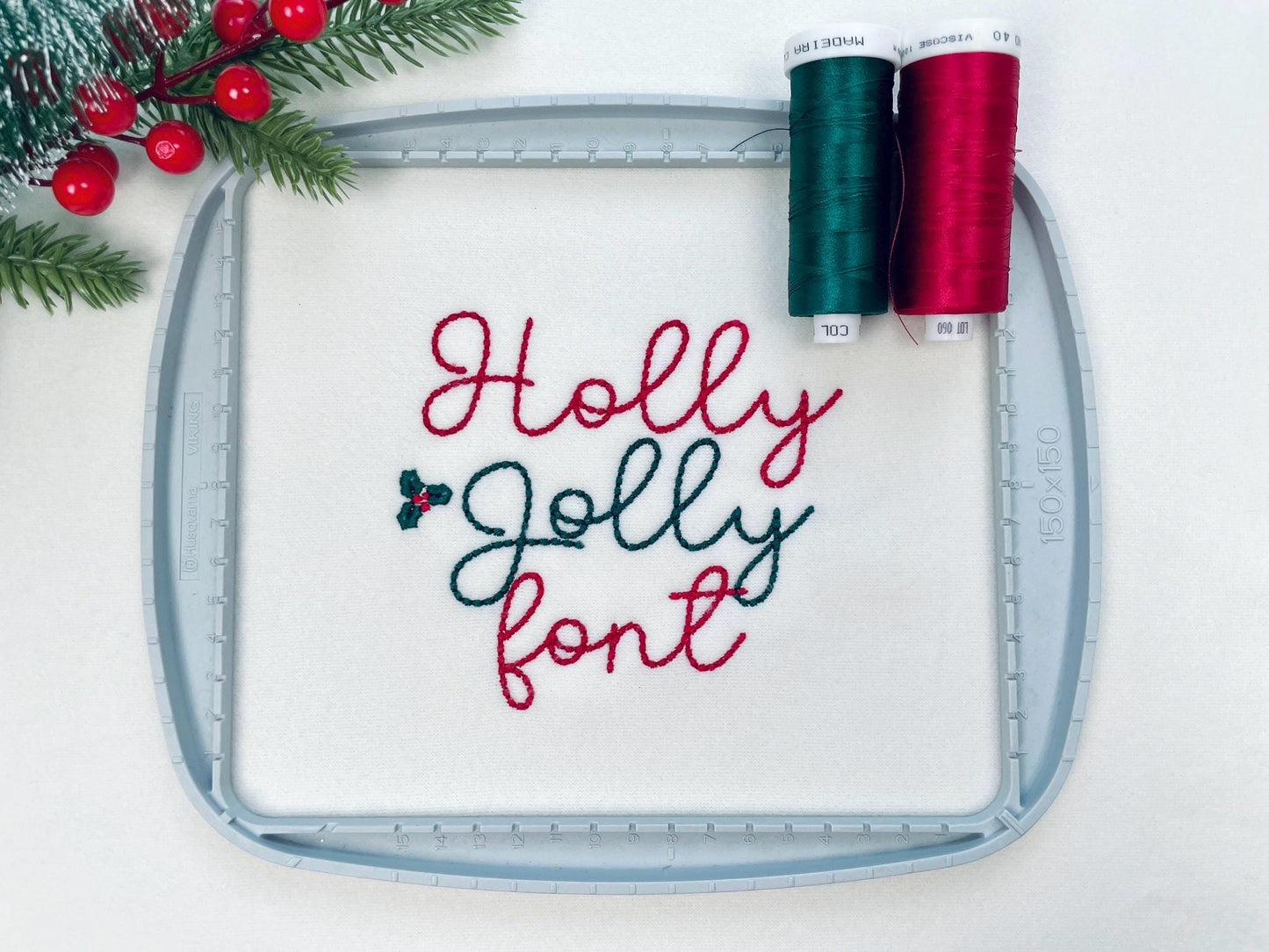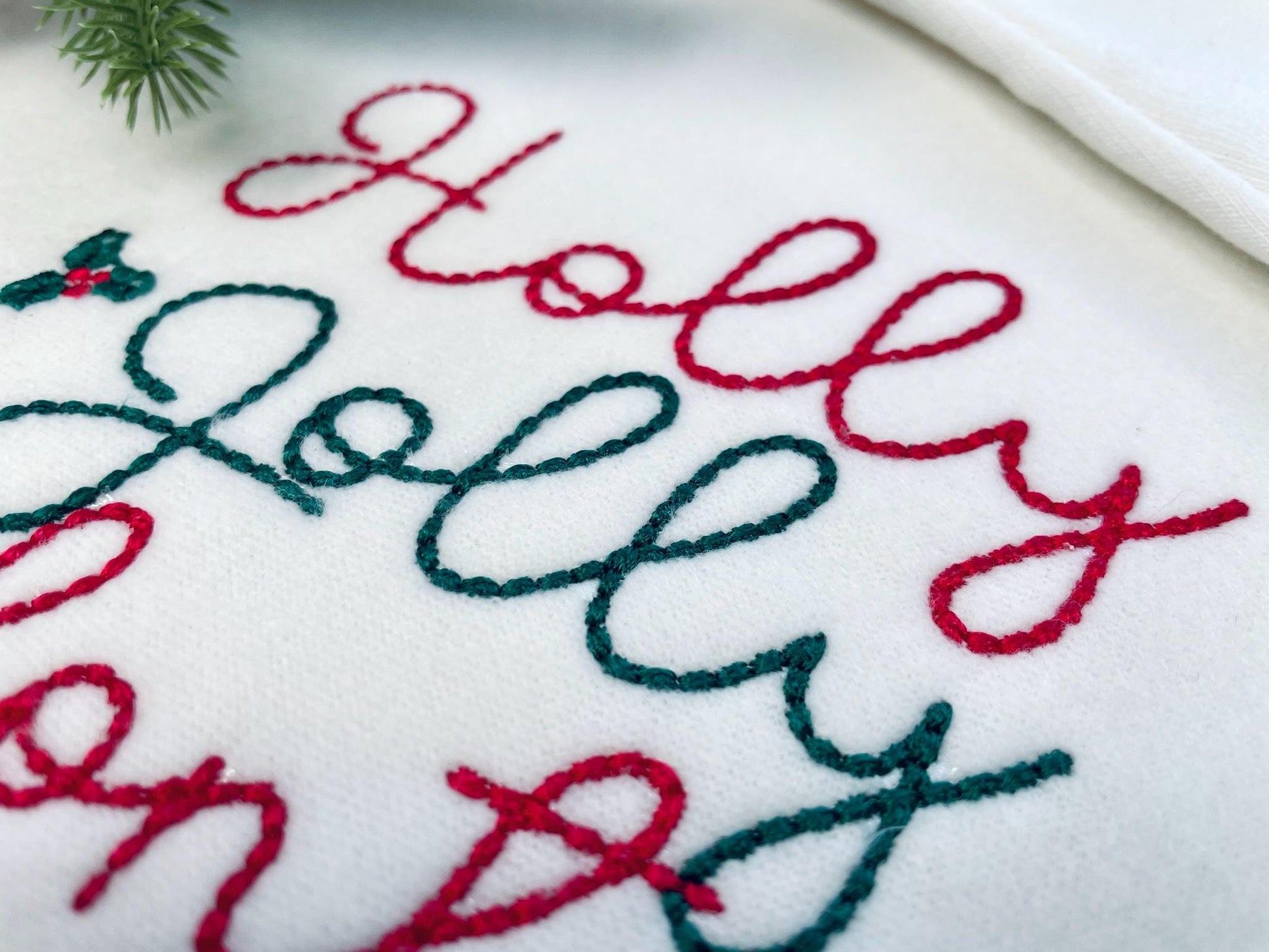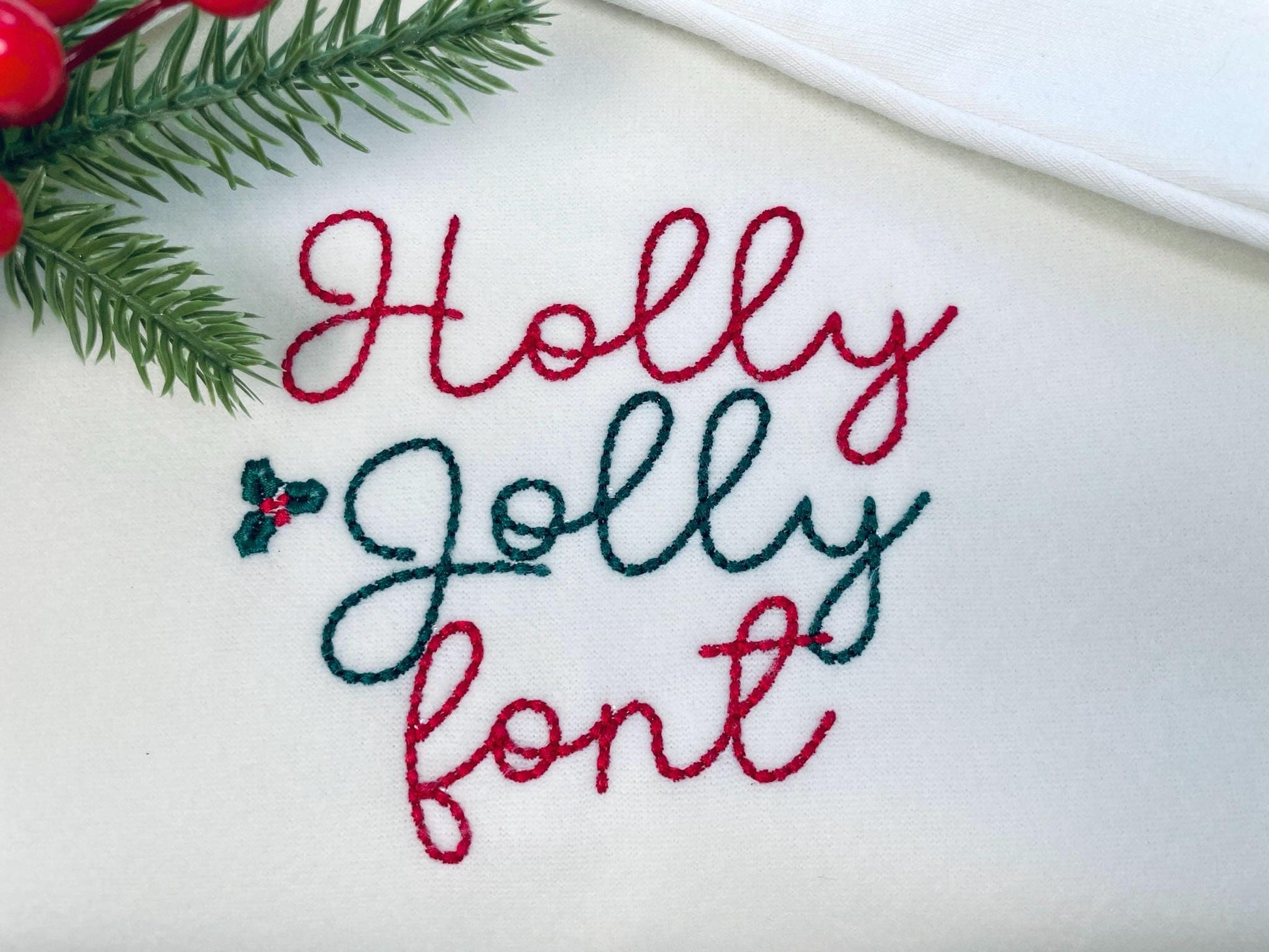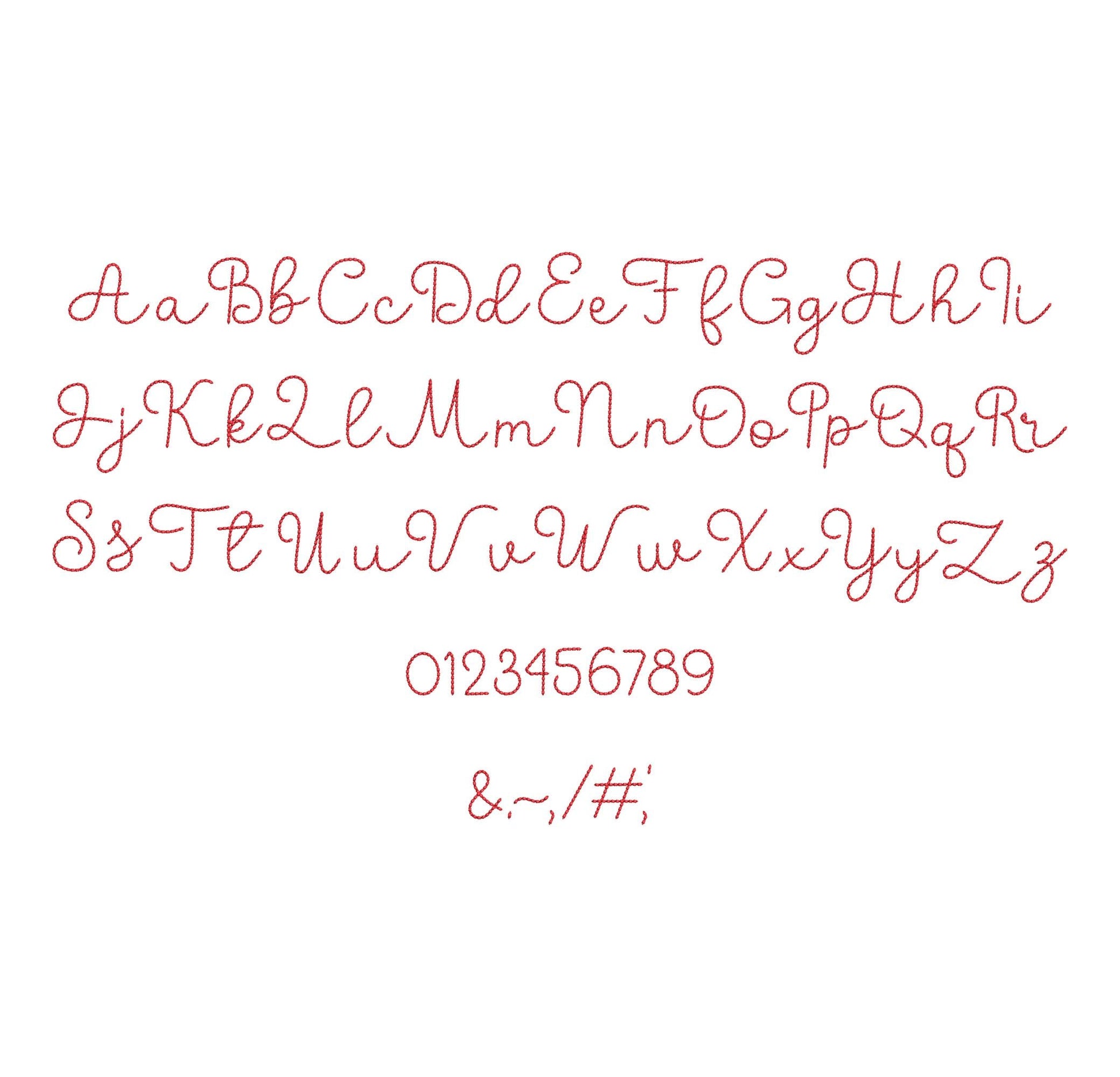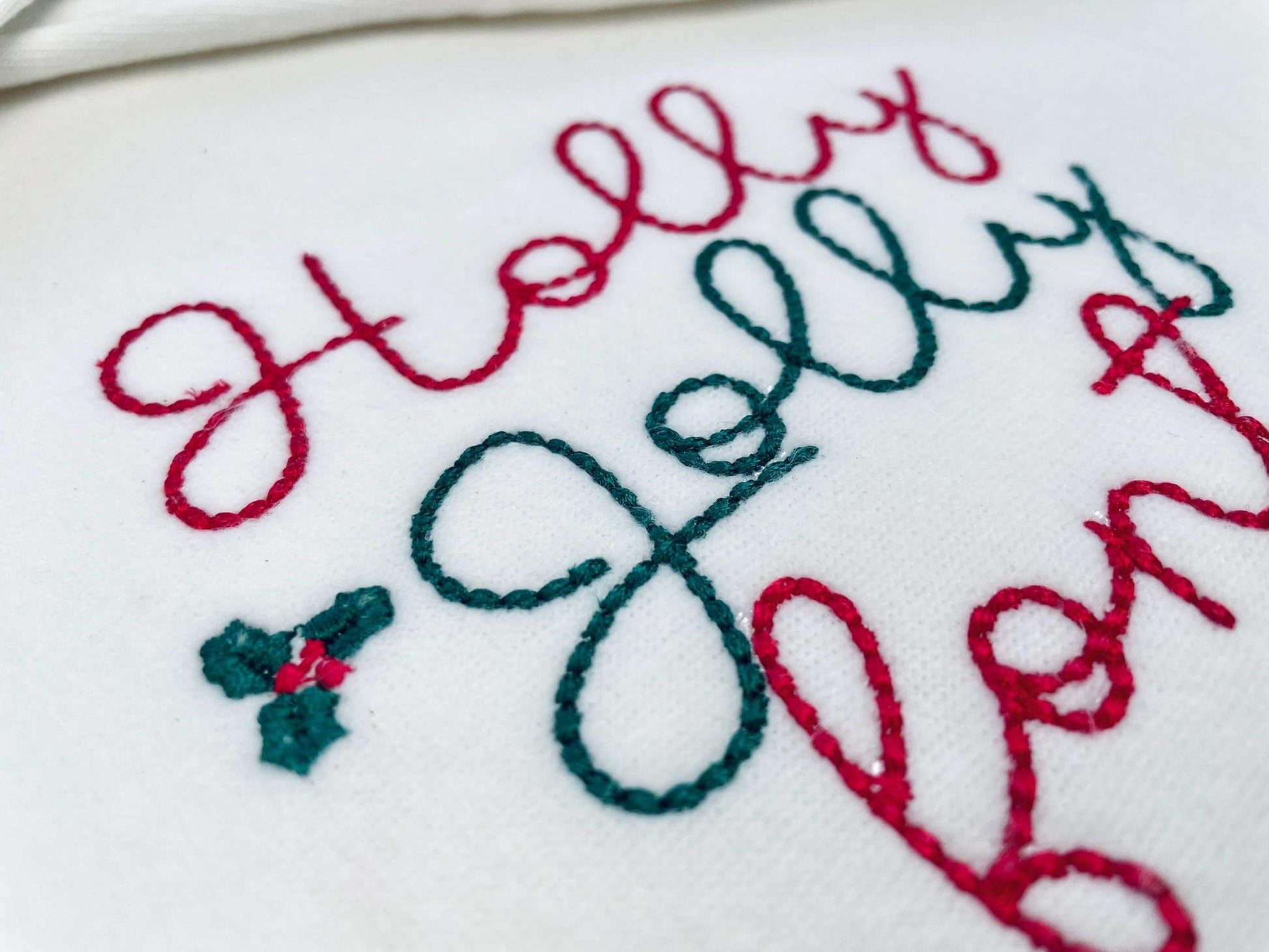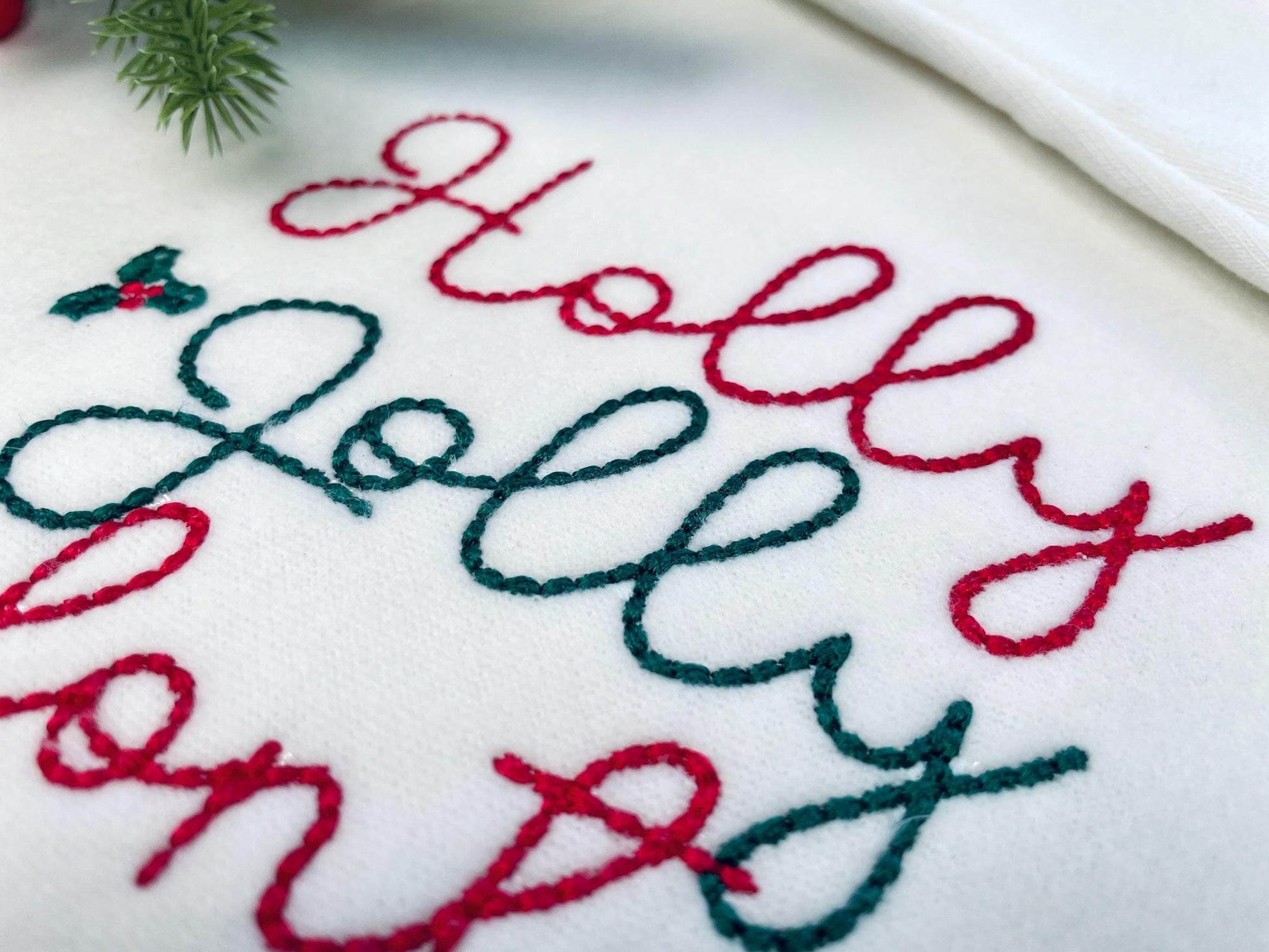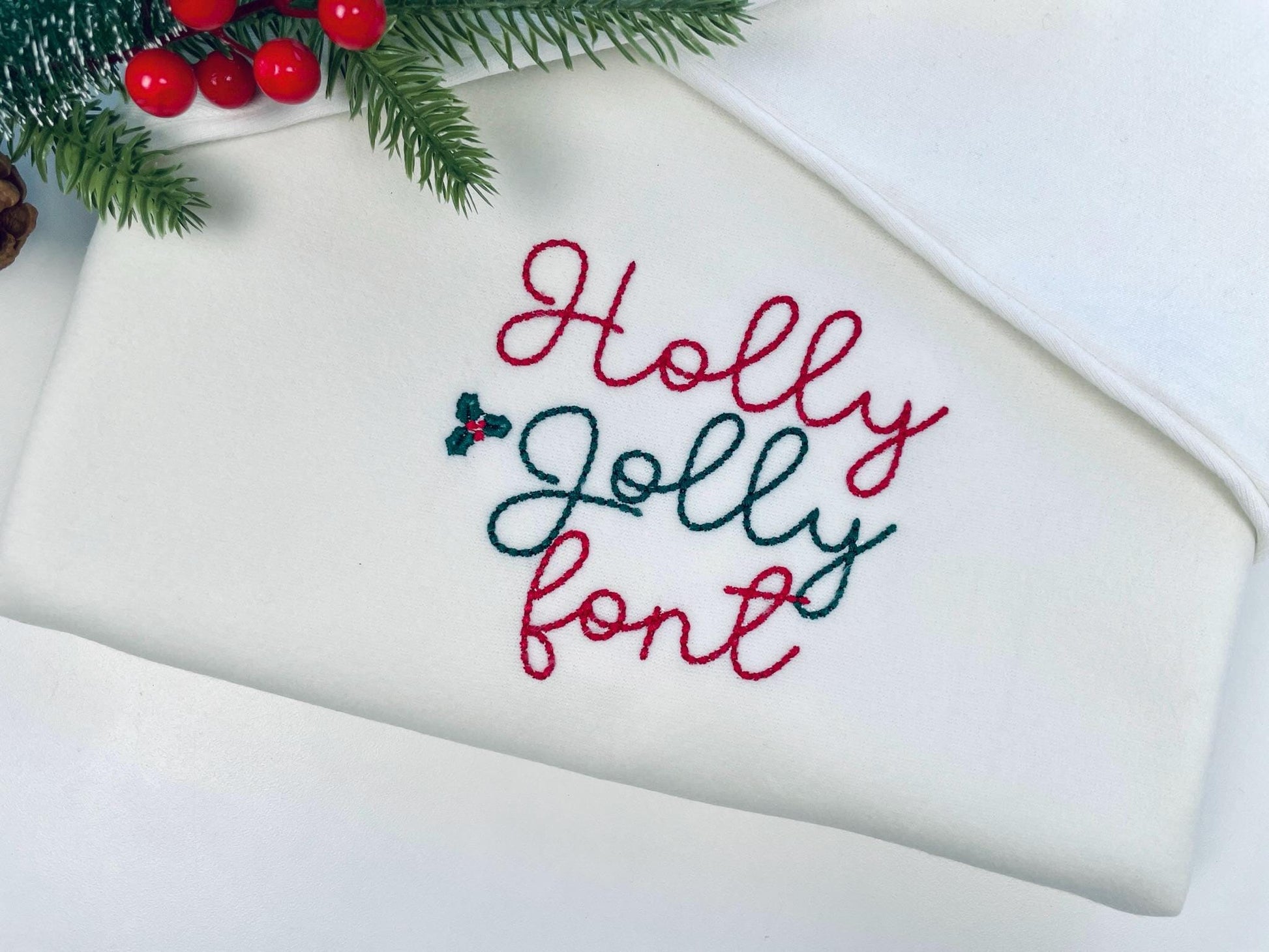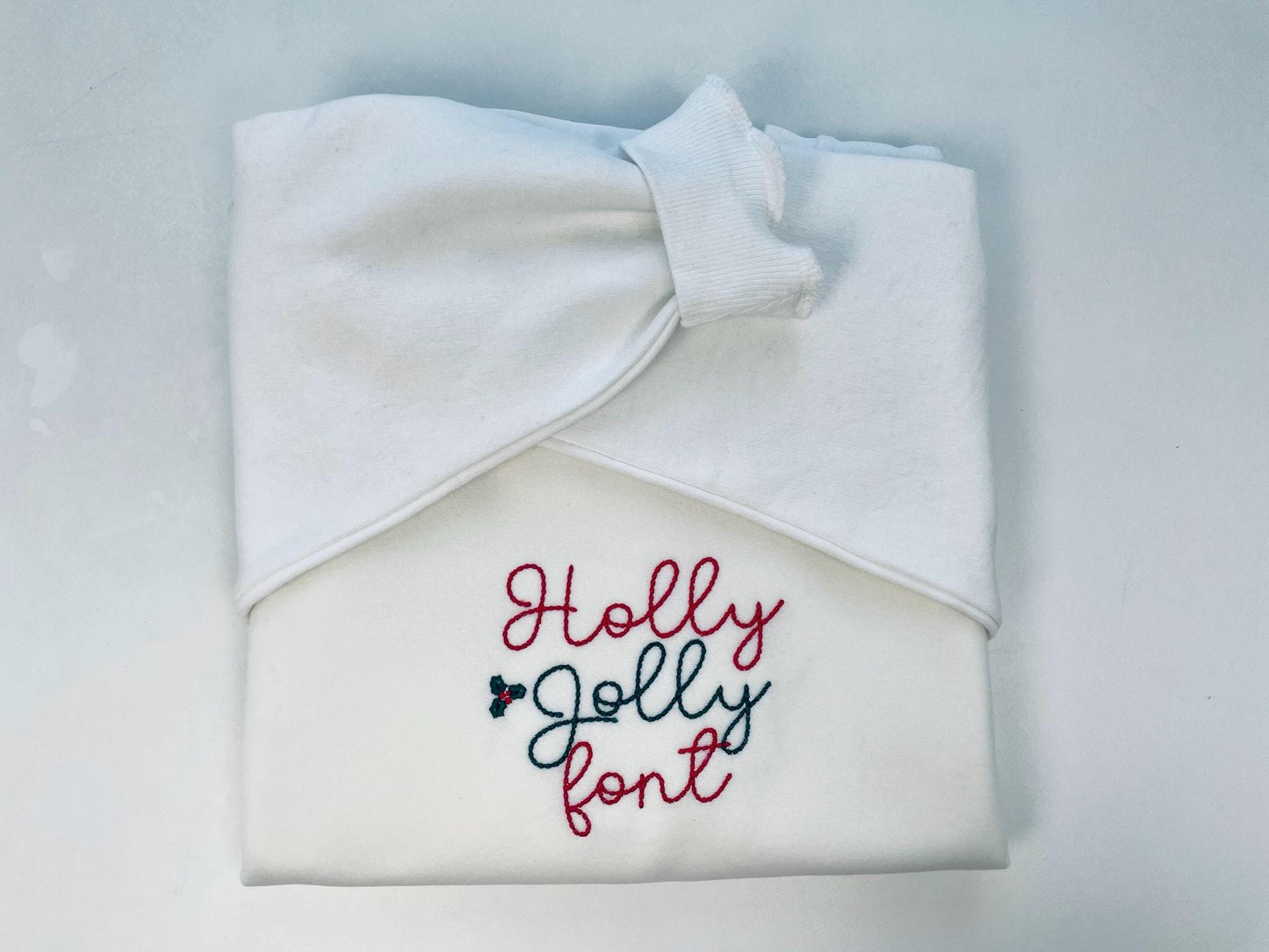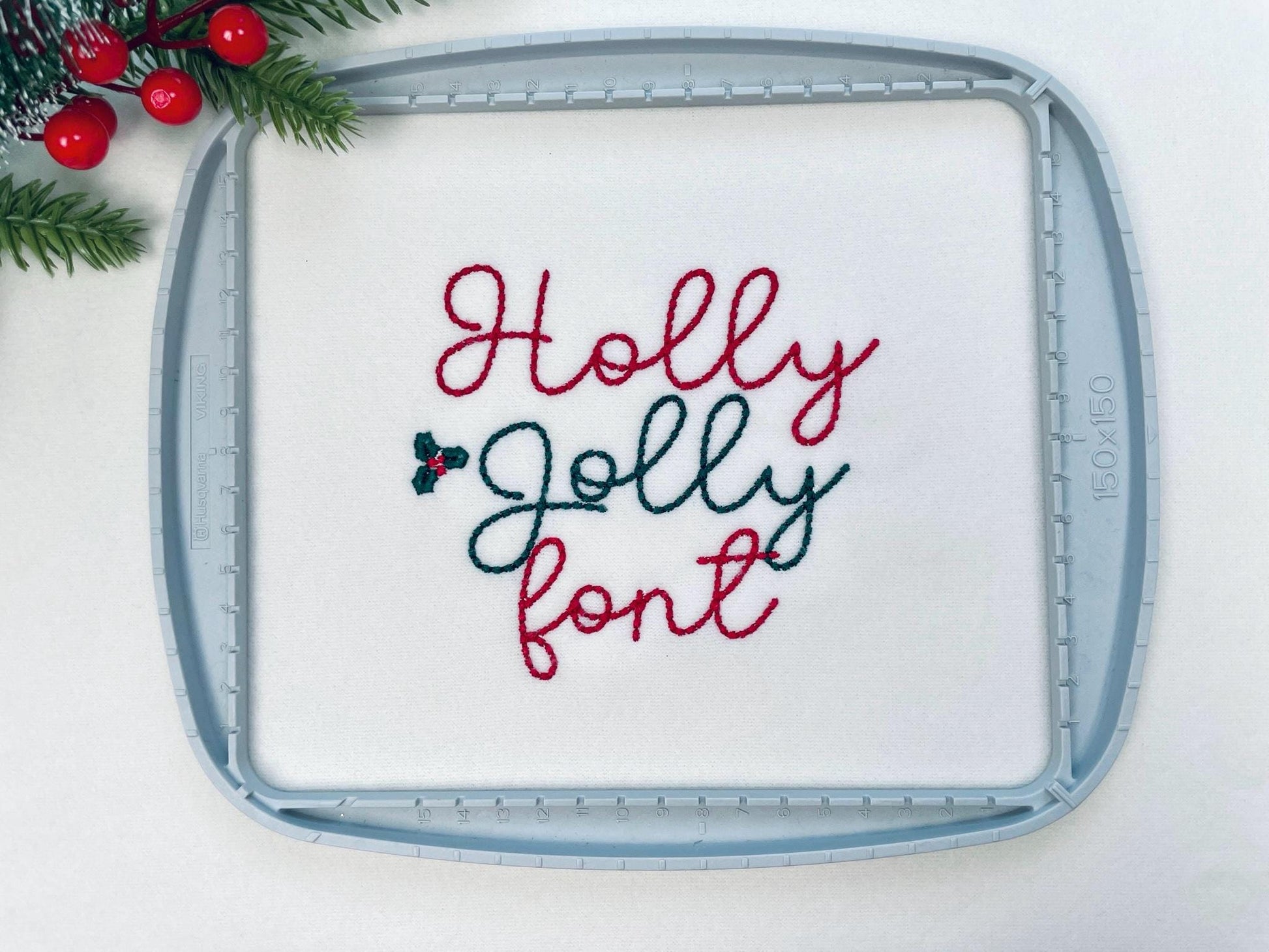
Hand Stitch Effect Font Butterscript
Or click to open the linkA handwritten script font that looks hand-stitched, made with a seed stitch. Sweet for kids' names, monograms and short words.
The letters come in six sizes: 1.2, 1.6, 2, 2.5, 3.1 and 3.9 inches. A light seed stitch gives each letter the look of hand embroidery. Includes uppercase and lowercase letters, numbers 0 to 9 and punctuation.
- Hand stitch effect script font, seed stitch